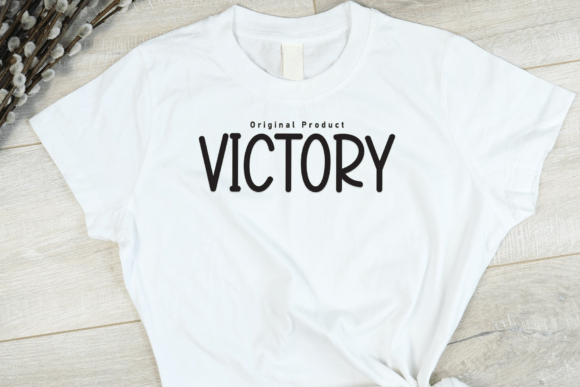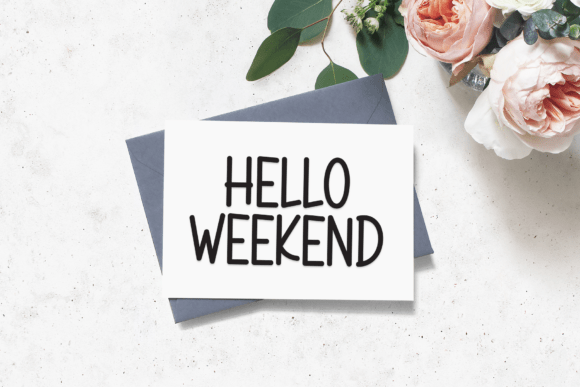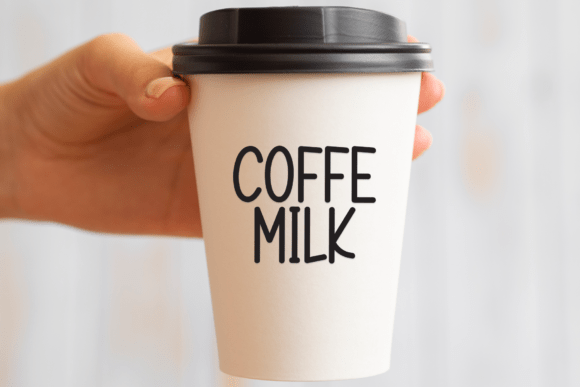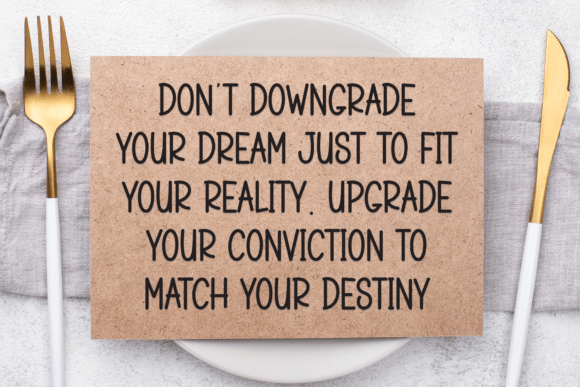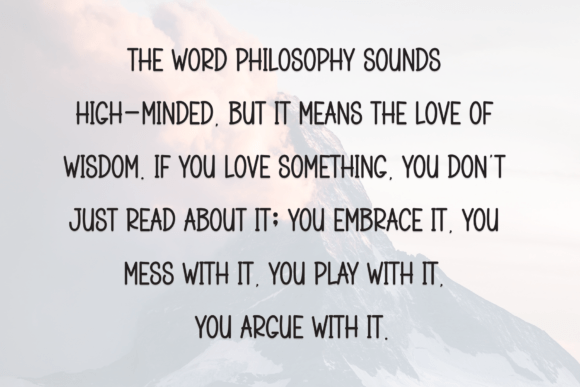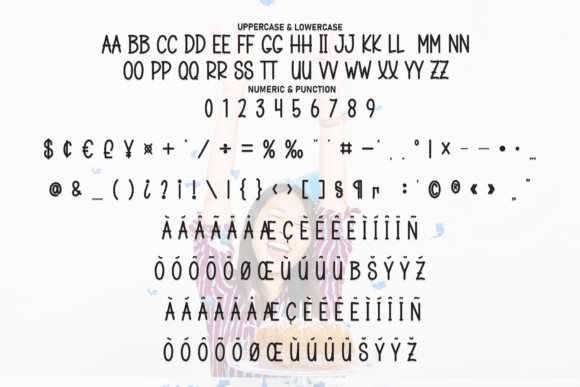
Introducing Birthday Verygood Font: The Perfect Handwritten Display Font for Your Creations
Are you looking for a font that can add a spark of joy to your designs? Look no further than the Birthday Verygood Font! This charming and approachable handwritten display font is perfect for bringing a touch of magic to your creations. With its delightful and playful character, it’s masterfully tailored for crafting enchanting wedding invitations, heartfelt cards, or injecting a burst of fun into any design project.
The Characteristics of Birthday Verygood Font
The Birthday Verygood Font exudes an irresistibly sweet sentiment that adds a touch of magic to your visual storytelling. Its playful and charming character makes it perfect for designs that require a personal touch. The font’s handwritten style gives it a unique and organic feel that’s sure to capture the attention of your audience.
One of the standout features of the Birthday Verygood Font is its versatility. It’s perfect for a wide range of design projects, from wedding invitations and cards to posters, flyers, and more. The font’s playful character makes it ideal for designs that require a touch of whimsy and fun.
Why Choose Birthday Verygood Font?
So, why choose the Birthday Verygood Font for your next design project? Here are just a few reasons:
- Unique and eye-catching: The Birthday Verygood Font is a one-of-a-kind font that’s sure to grab the attention of your audience. Its playful and charming character makes it perfect for designs that require a personal touch.
- Versatile: The font’s versatility makes it perfect for a wide range of design projects, from wedding invitations and cards to posters, flyers, and more.
- Easy to read: Despite its playful character, the Birthday Verygood Font is easy to read and understand. This makes it perfect for designs that require a clear and concise message.
- Customizable: The font is highly customizable, allowing you to adjust the size, color, and style to fit your design needs.
How to Use Birthday Verygood Font
Using the Birthday Verygood Font is easy! Here are a few tips to get you started:
- Pair it with other fonts: The Birthday Verygood Font pairs well with other fonts, making it easy to create a unique and eye-catching design.
- Use it for headings: The font’s playful character makes it perfect for headings and titles. Use it to add a touch of whimsy and fun to your design.
- Experiment with colors: The font’s versatility makes it easy to experiment with different colors and styles. Try using it with bright and bold colors to add a pop of color to your design.
Design Ideas Using Birthday Verygood Font
The Birthday Verygood Font is perfect for a wide range of design projects. Here are a few ideas to get you started:
- Wedding invitations: The font’s playful and charming character makes it perfect for wedding invitations. Use it to add a touch of whimsy and fun to your wedding stationery.
- Birthday cards: The font’s sweet and sentimental character makes it perfect for birthday cards. Use it to create a heartfelt and personalized message for your loved ones.
- Posters and flyers: The font’s versatility makes it perfect for posters and flyers. Use it to add a touch of fun and whimsy to your advertising materials.